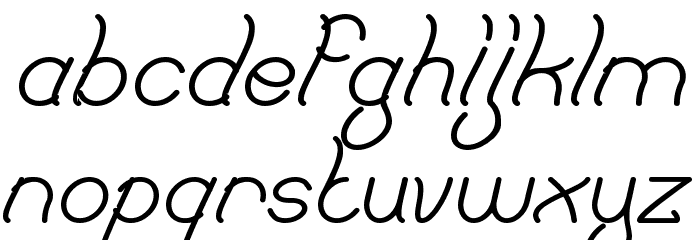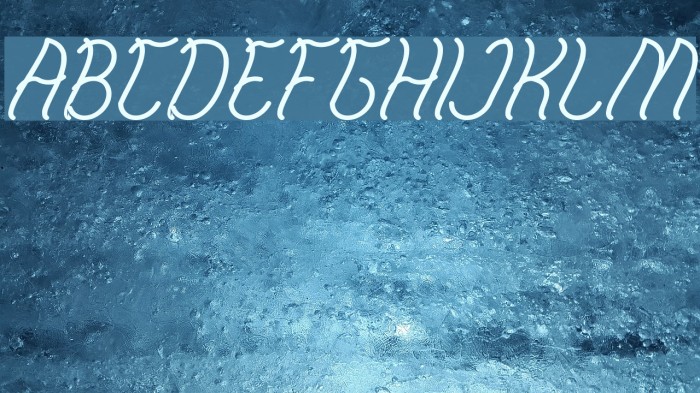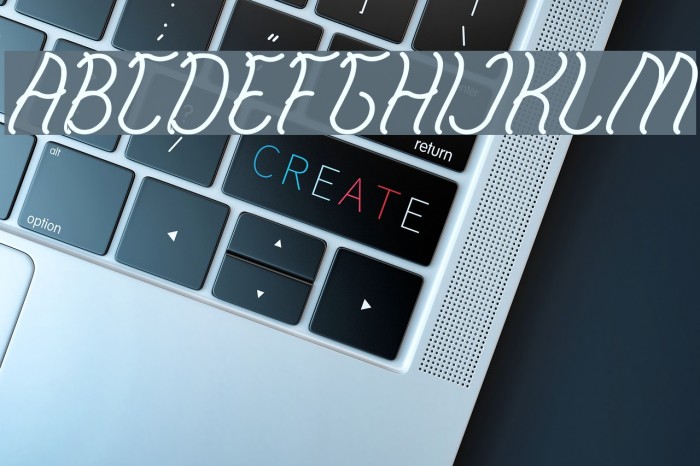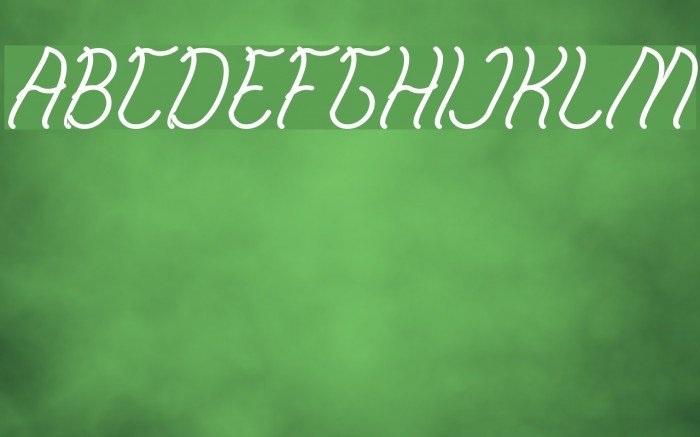
French Fries Bold Font
This font features a playful and whimsical script style, characterized by its flowing, connected letters that mimic the fluidity of handwriting. The strokes are smooth and rounded, giving it a friendly and approachable appearance. The uppercase letters maintain a consistent height, while the lowercase letters have a slight slant, adding to the casual feel. The numerals and special characters are designed to match the overall style, ensuring uniformity across all text. This font's unique personality makes it ideal for creative projects that require a touch of fun and informality.
A playful script font with smooth, connected letters and a casual, friendly style.
- Proposed Projects: Great for greeting cards, invitations, playful branding, and children's book covers.
- Category: Script
- Overall Style: Casual, Playful
- Use Case: Logos, Invitations, Greeting Cards